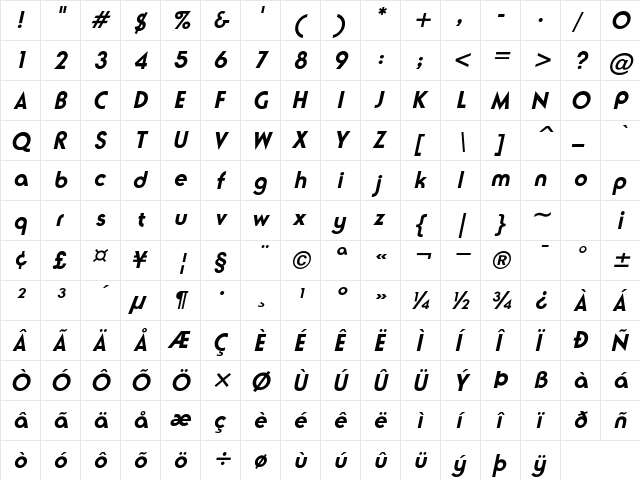
NeuseSSK BoldItalic
Design Context for NeuseSSK Typeface
NeuseSSK is a composed and adaptable typeface that performs quietly and consistently across a wide range of design contexts. The slanted form adds forward momentum and visual energy. Its bold stroke weight gives it real presence on the page.
Pro Tip: Use NeuseSSK for emphasis, pull quotes, and subheadings where its slanted energy can add rhythm to the layout.